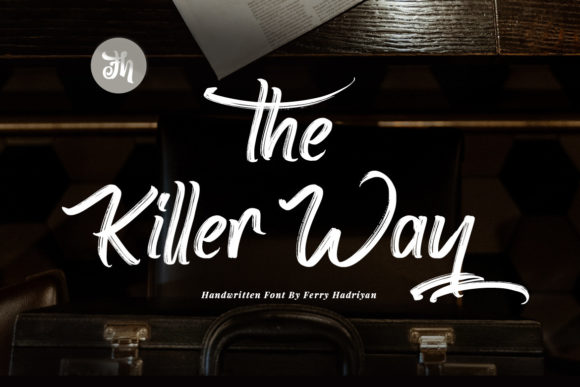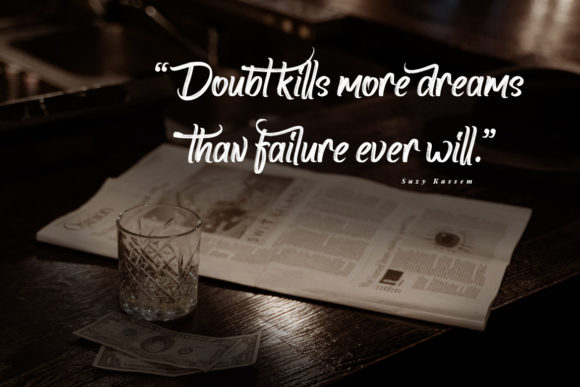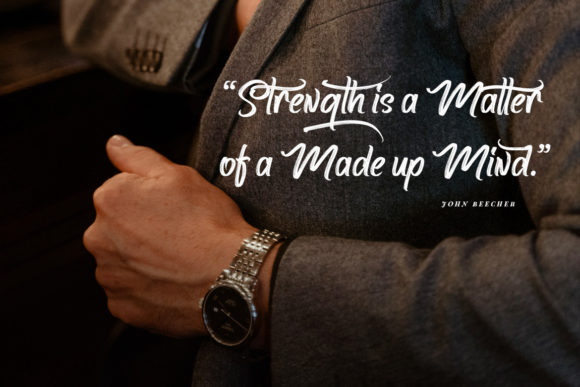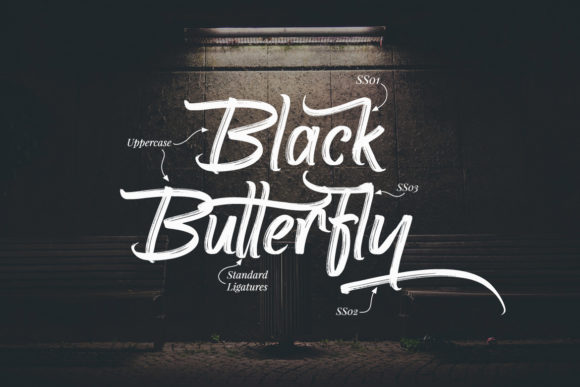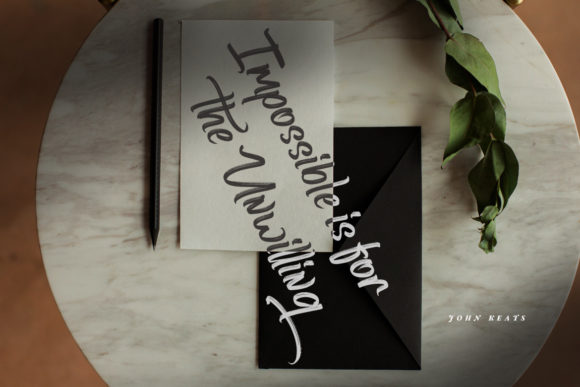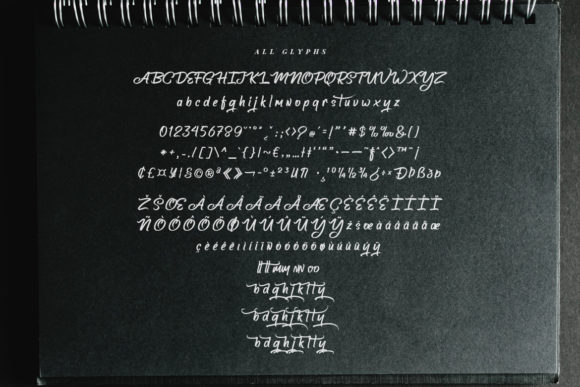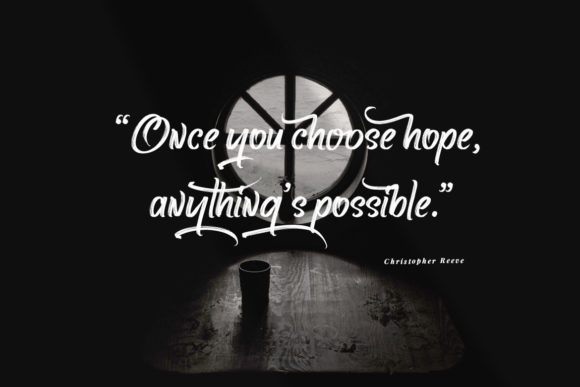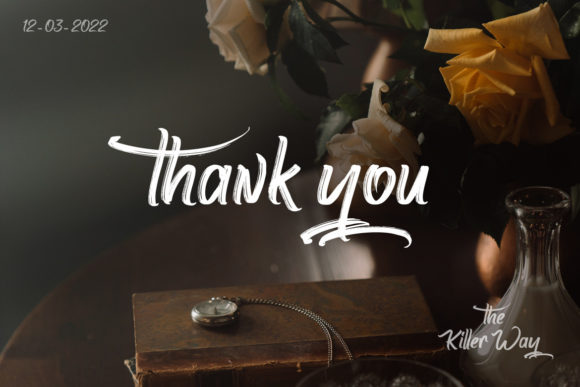
The Killer Way Font
About The Killer Way Font
The Killer Way is a font that exudes a sense of fashion and casual elegance, making it a perfect choice for a wide range of creative endeavors. With its brushed script design, this font brings a dynamic and modern vibe to various types of design projects.
The fashionable and contemporary appearance of The Killer Way makes it well-suited for projects that require a trendy and eye-catching aesthetic. Its brushed strokes and playful letterforms add a touch of spontaneity and flair to logos, branding materials, and advertisements. The font’s dynamic nature can help capture the attention of viewers and create a memorable impression.
This font’s versatility extends to its application in blog posts, where it can be used to create eye-catching headers, titles, and featured text. Its unique and stylish appearance can contribute to the overall visual appeal of blog content, making it stand out and engaging for readers.
The Killer Way is also a great choice for personal invitations, greeting cards, and event-related materials. Its brushed script style brings a sense of informality and vibrancy to invitations, making them feel personalized and inviting. Whether for parties, gatherings, or special occasions, this font can add a playful and stylish touch to event-related designs.
Additionally, the font can be used in digital and print media such as planners, photo albums, and decorations. Its brushed strokes can infuse these materials with energy and character, enhancing their overall visual appeal and contributing to a cohesive design aesthetic.
In summary, The Killer Way is a fashionable and brushed script font that brings a modern and dynamic touch to a variety of creative projects. Its ability to convey style and informality makes it suitable for logos, branding, invitations, blog posts, and more. Whether used for digital or print materials, this font’s trendy appearance can elevate your designs and add a fresh and engaging element to your work.